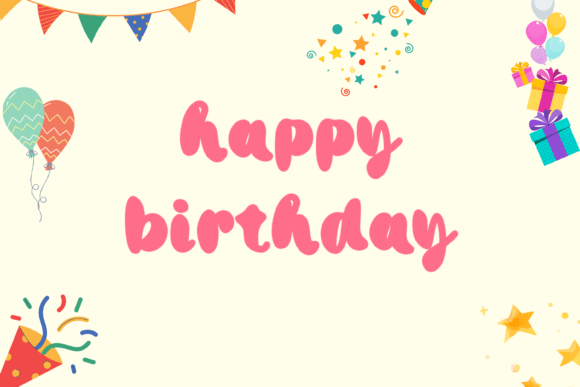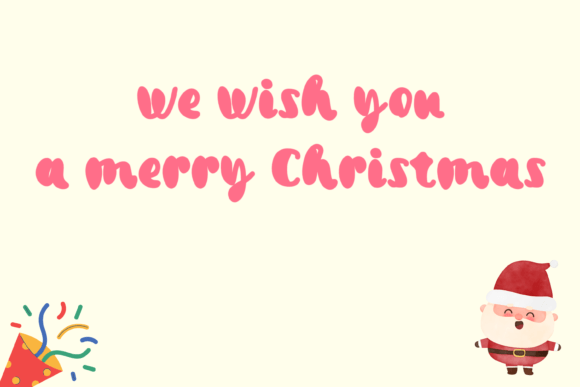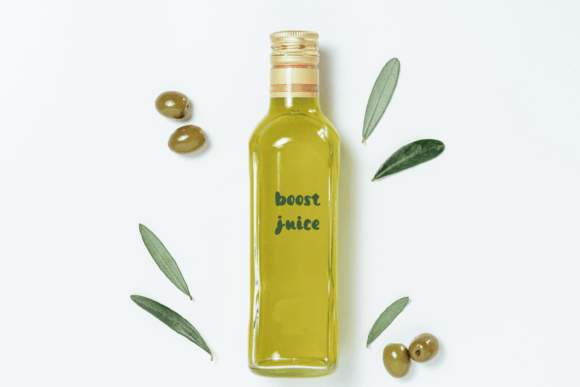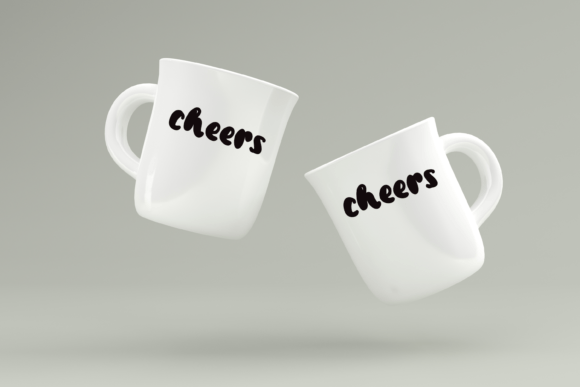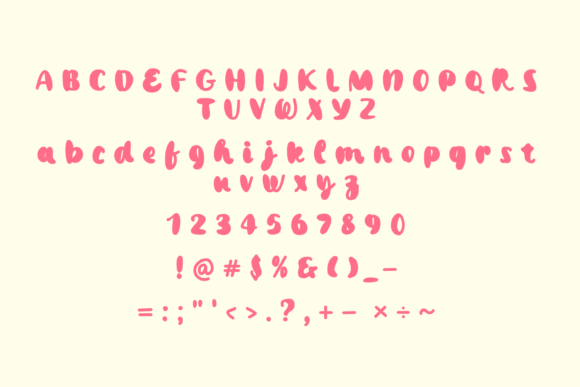
Introduction to Jelly Font Font
Fonts play a crucial role in design, and the Jelly Font font is a typeface that brings both character and versatility to any project. Whether you’re working on a branding project, a website, or a print design, the Jelly Font font offers a unique style that can elevate your work.
Jelly is a sweet and friendly handwritten font.
Key Features of Jelly Font Font
Why Choose Jelly Font Font?
The Jelly Font font is more than just a typeface – it’s a design tool that helps you communicate your message with style and clarity. Its unique character set and versatile design make it suitable for a wide range of applications, from elegant invitations to bold headlines.
With its carefully crafted letterforms and balanced proportions, the Jelly Font font ensures readability and visual appeal across all mediums.
What makes Jelly Font font special?
The Jelly Font font stands out with its unique design, exceptional readability, and versatility across various design applications.